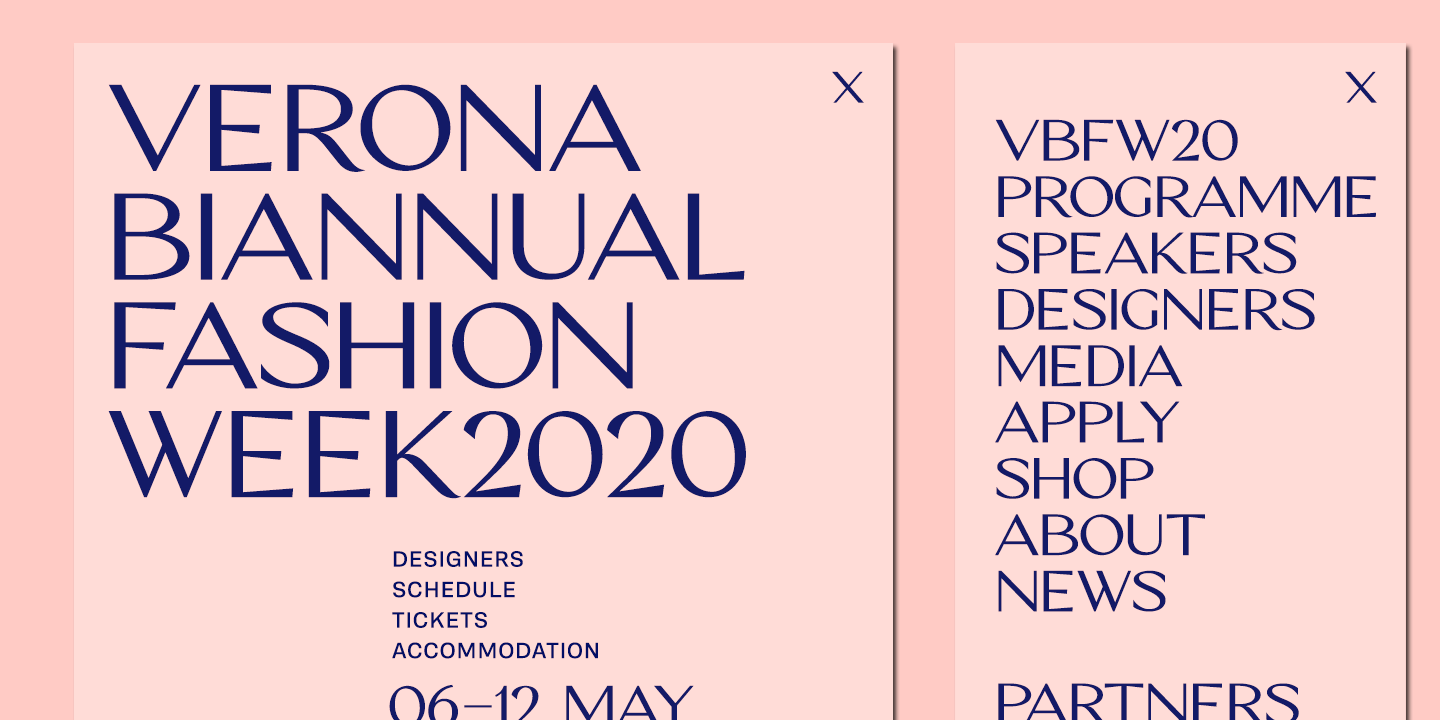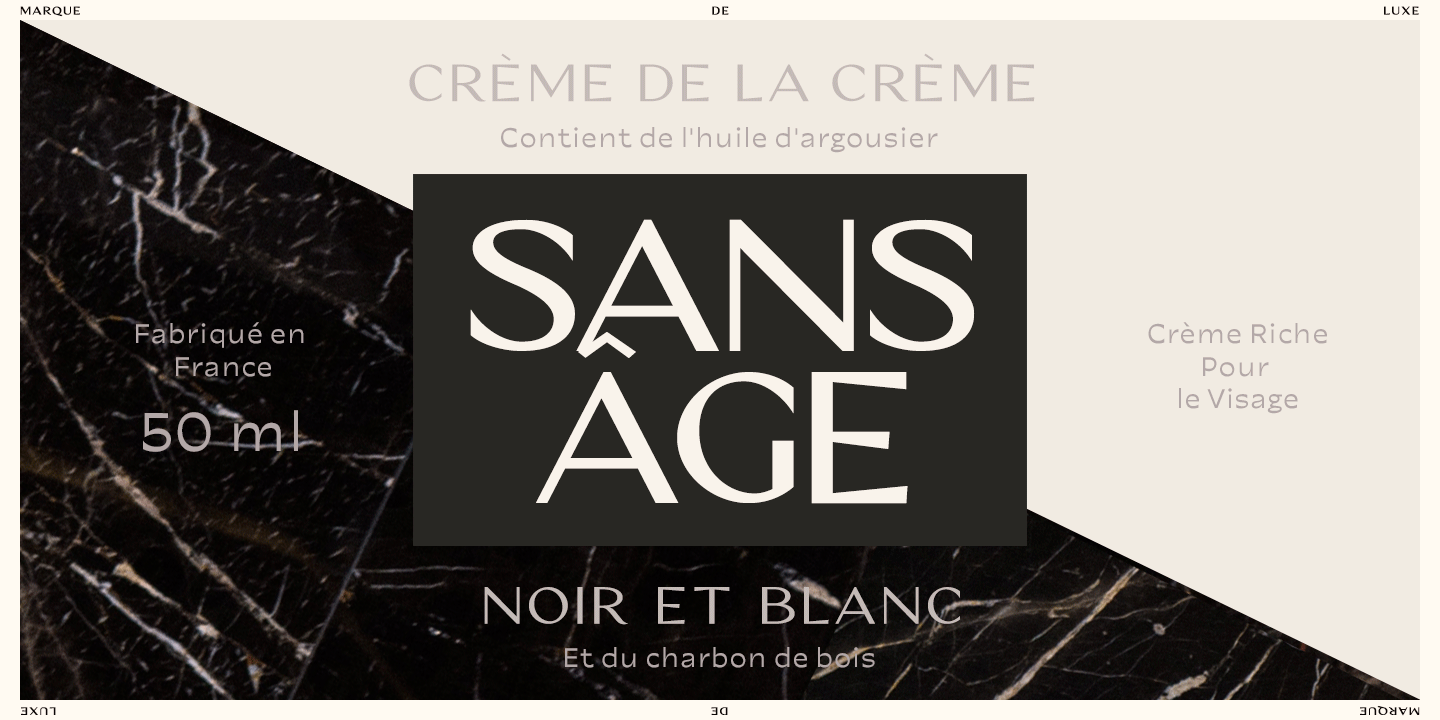
About Vogue Sans
Vogue Sans is a luxurious high contrast sans serif well suited for fashion and haute couture design or glamorous headlines. Try typing any word or name with Vogue Sans and it\’ll look great. Vogue Sans is equipped with several interlocking ligatures -…